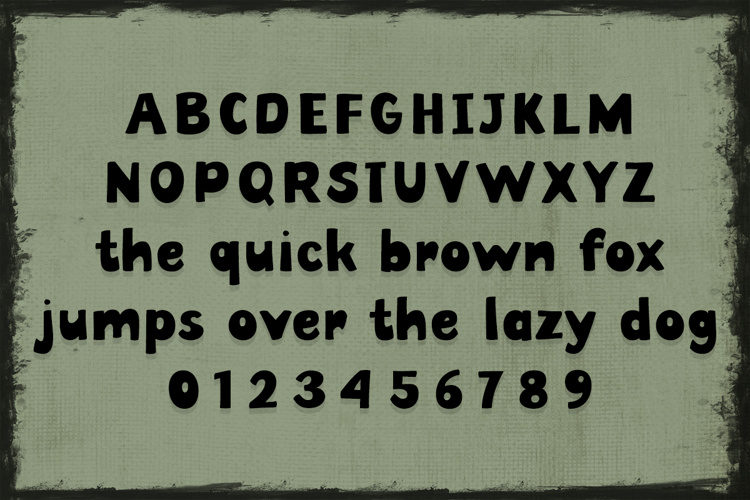
Eat Me Alive Font
Blackout Regular Style
Eat Me Alive is a bold and playful Halloween-inspired font with quirky, hand-drawn vibes. Available in Regular and Blackout styles, it’s perfect for spooky titles, party invites, posters, and any design that needs a fun creepy twist.